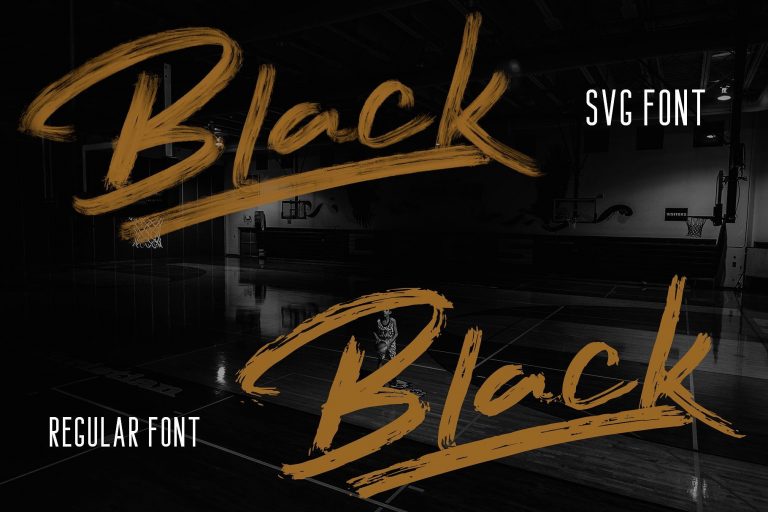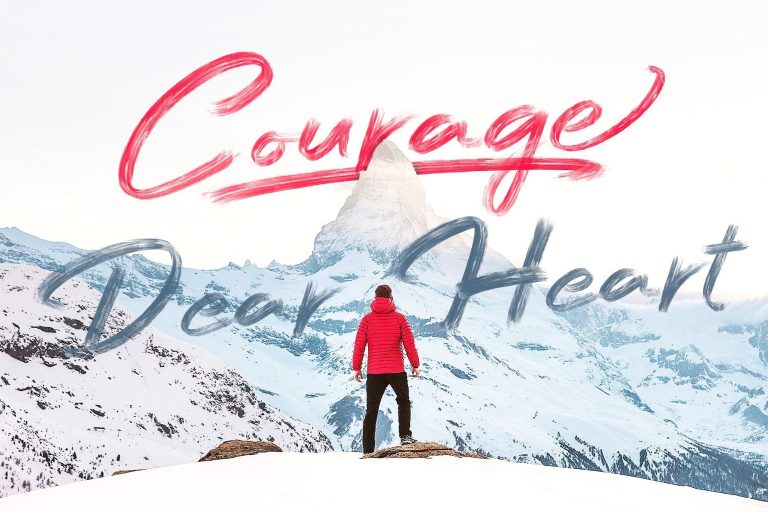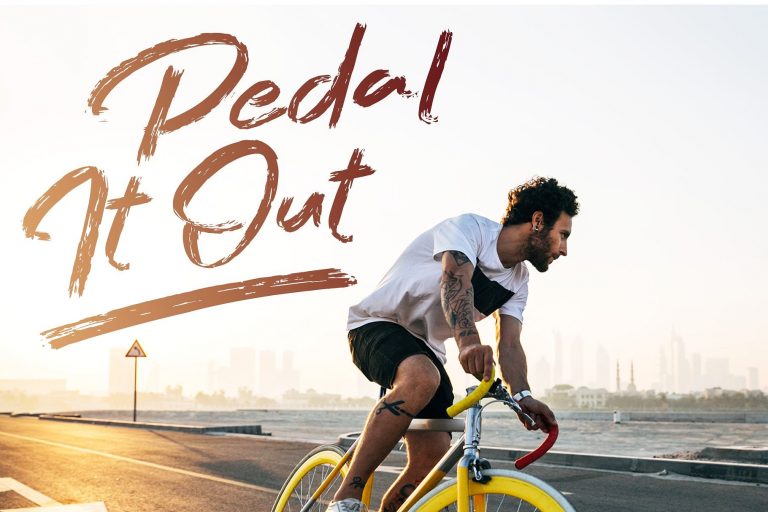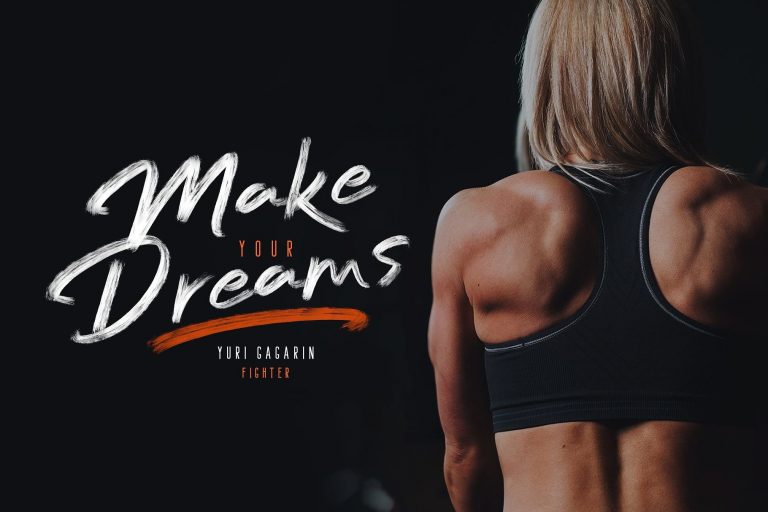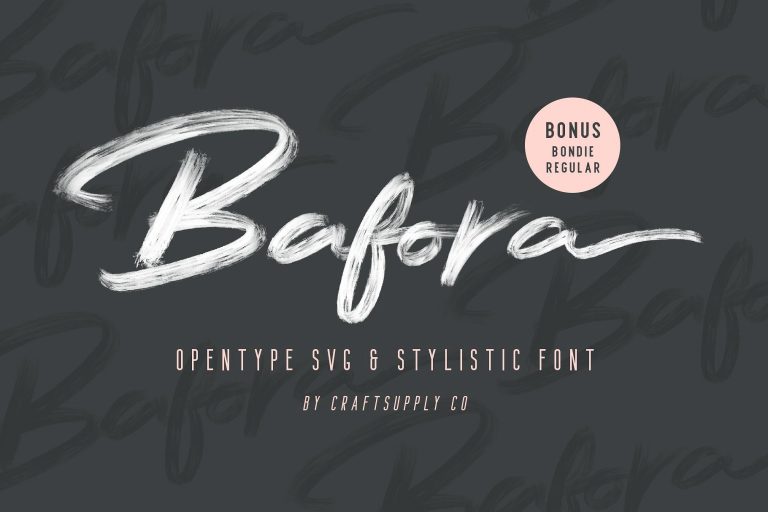
Bafora Brush Font
Bafora Brush Font – Free Demo
Glad to introduce you a font hand brushed with love made with pentel brush pen. Introducing Bafora Font! Bafora designed and shared by Craft Supply Co.. Bafora – SVG Font is a attractive contemporary typeface drawn from scratch with brand-new, more vigorous detailing — and SVG variations for multiple use. Bafora – SVG Font is suitable for Logo, greeting cards, quotes, posters, branding, name card, stationary, design title, blog header, art quote, typography art, modern envelope lettering or book design.